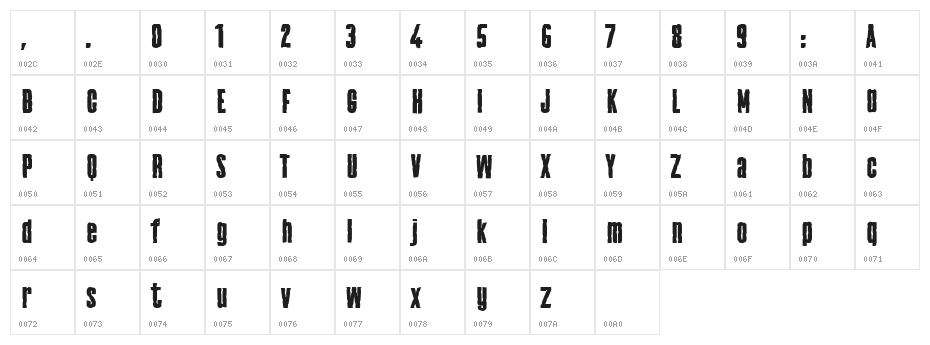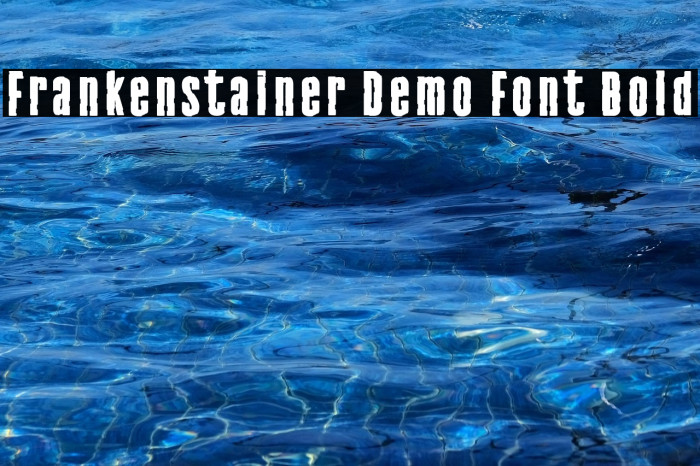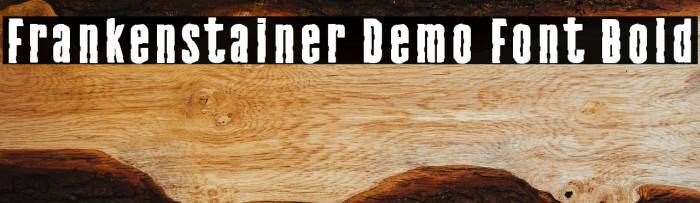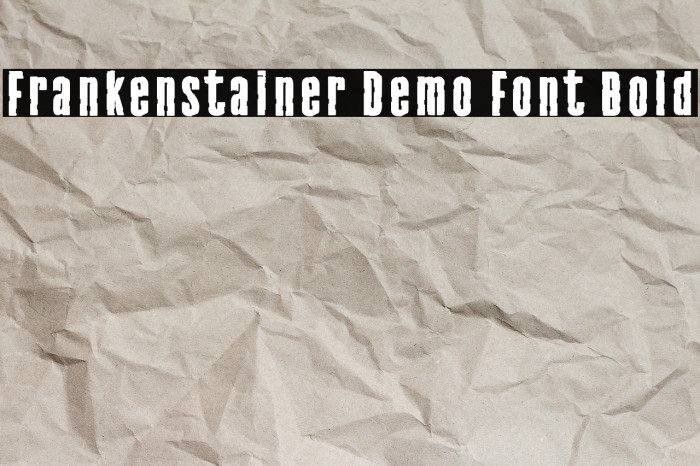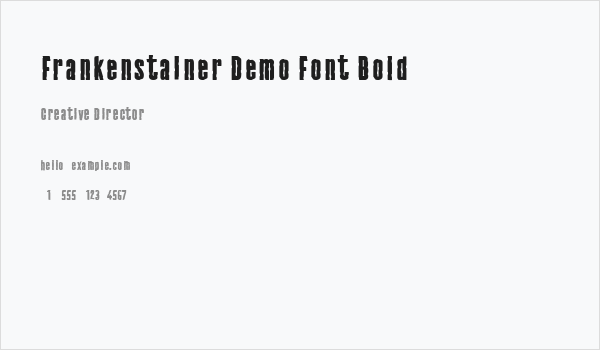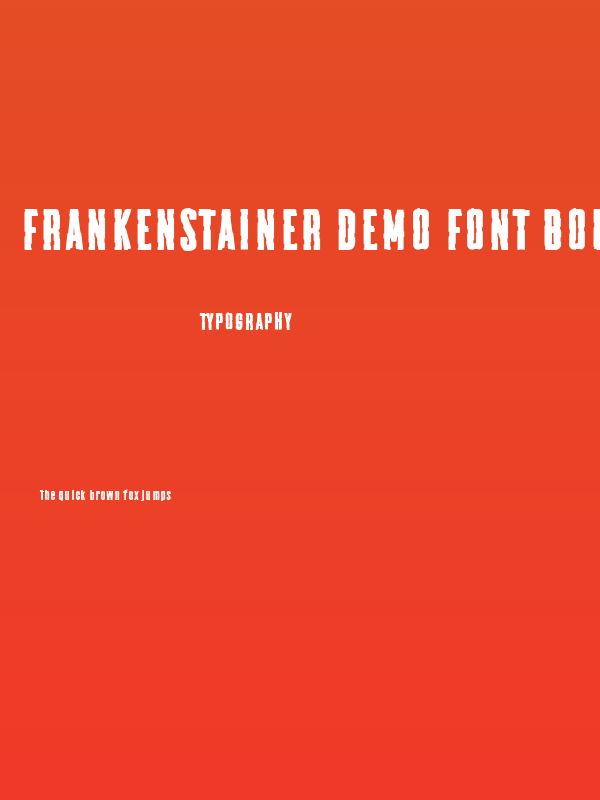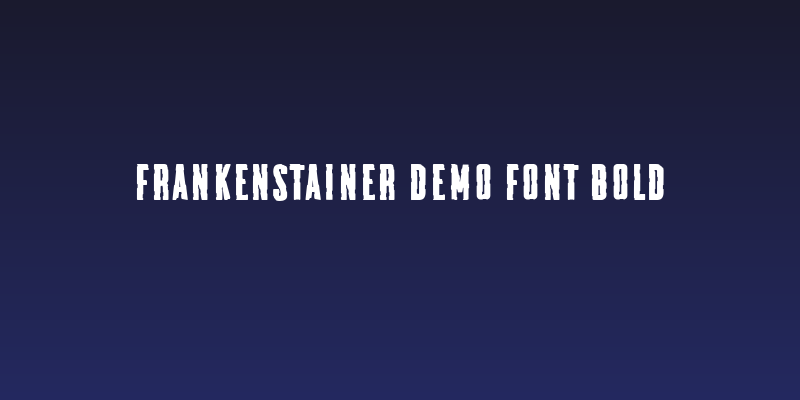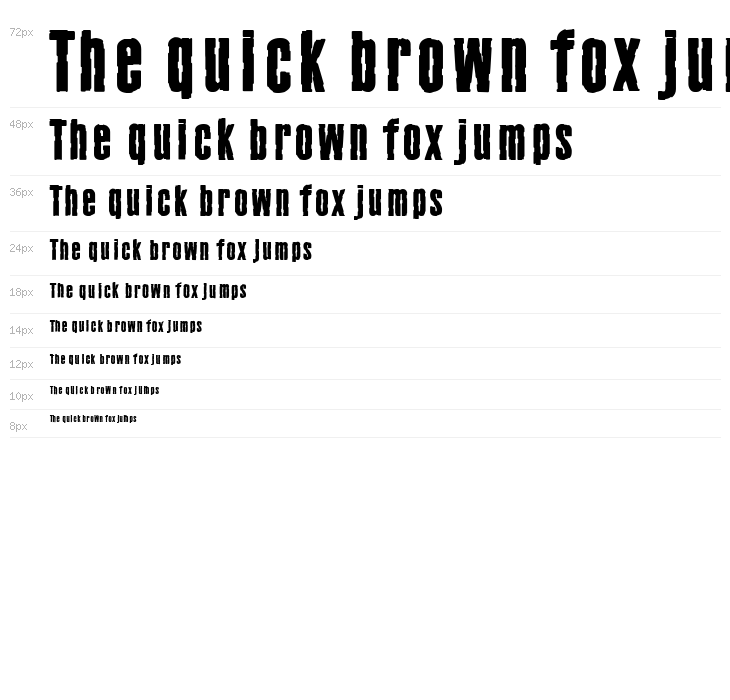
Frankenstainer Demo Font Bold Font
Frankenstainer Demo Font Bold Description
This font features a bold and rugged design with a distressed appearance, giving it a vintage and industrial feel. The characters are tall and narrow, with a strong vertical emphasis and slightly irregular edges that add to its worn and weathered look. The uppercase and lowercase letters maintain a consistent style, while the numerals and special characters complement the overall aesthetic. This font is ideal for projects that require a bold statement with a touch of nostalgia and grit.
| Proposed Projects | Ideal for posters, logos, branding, and any design needing a bold, vintage touch. |